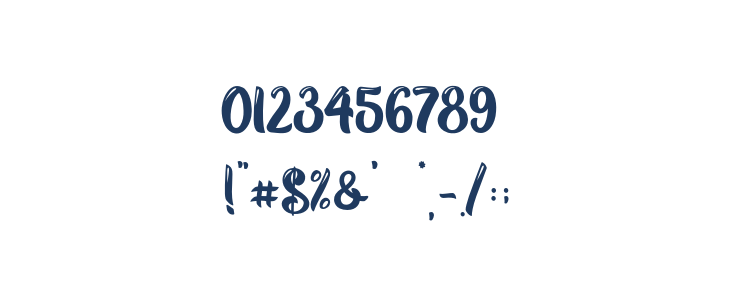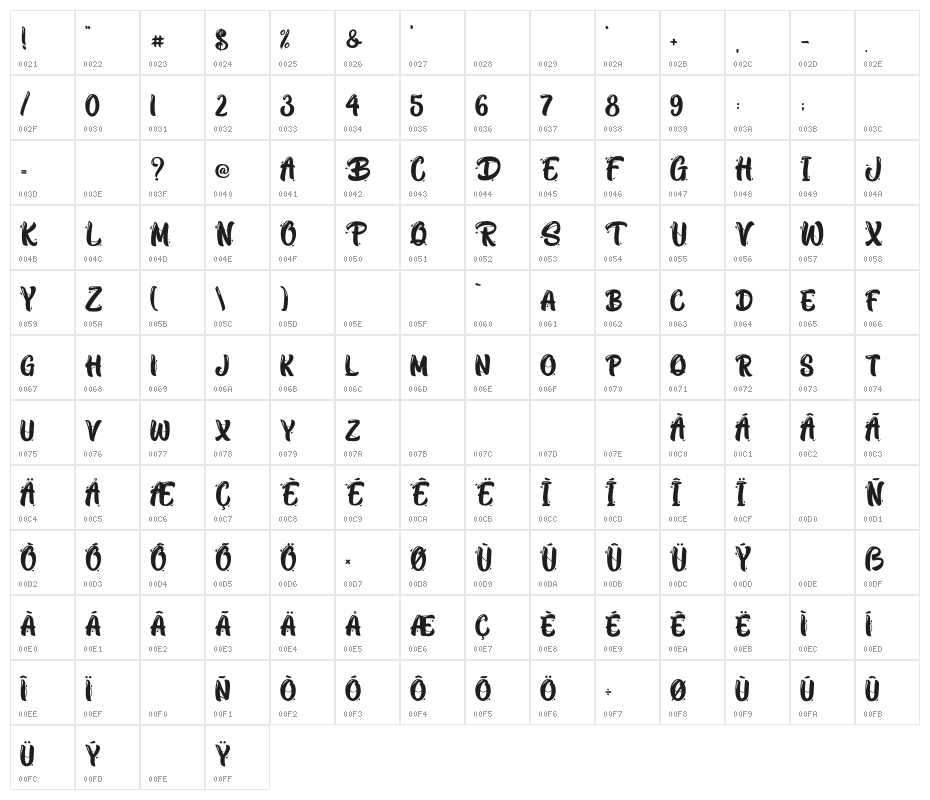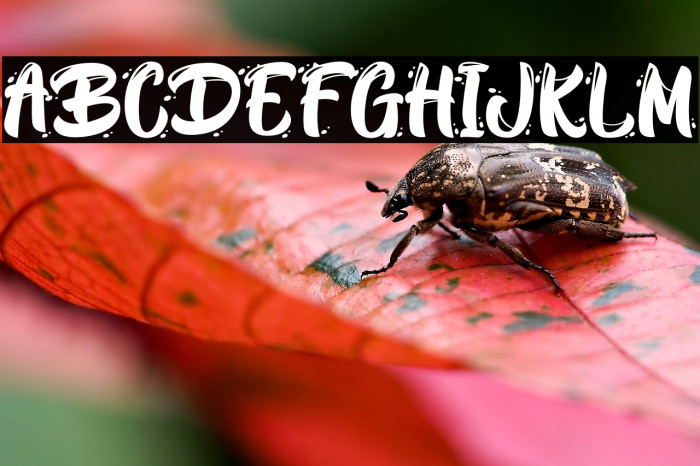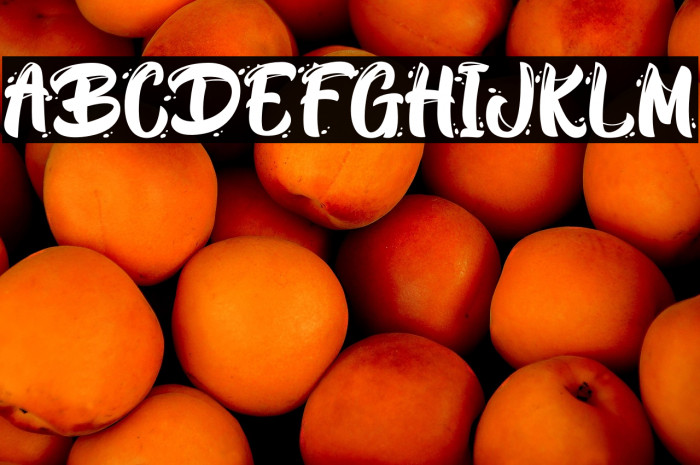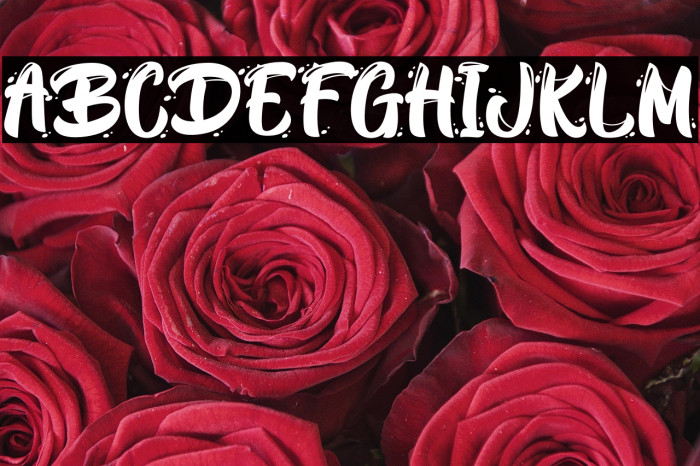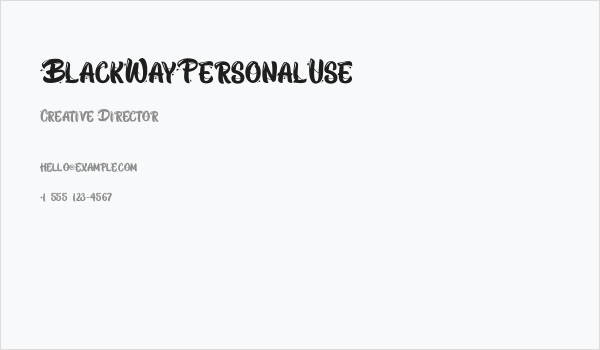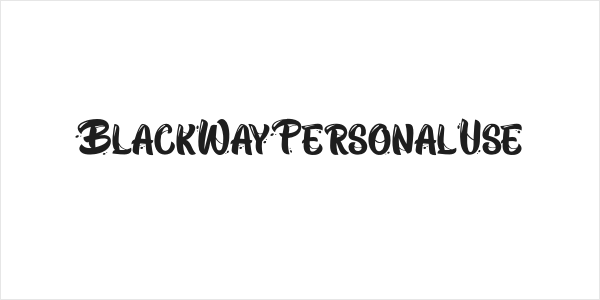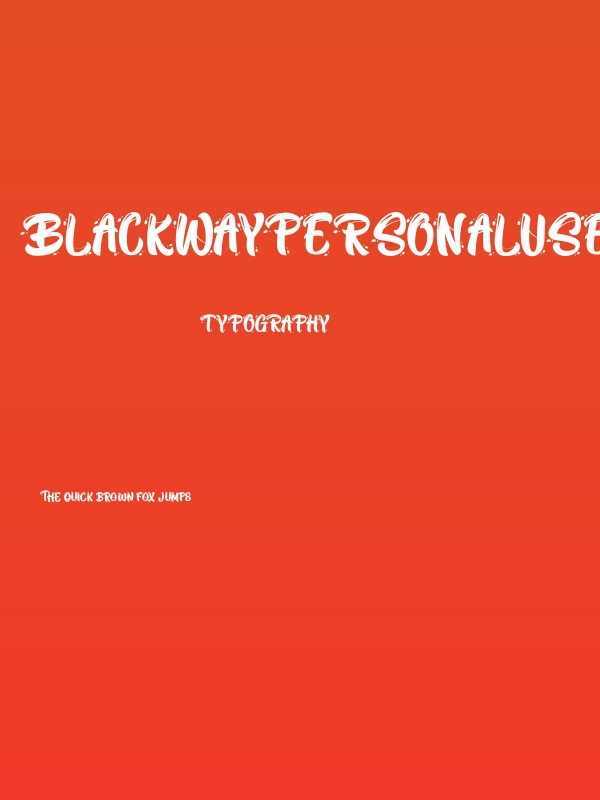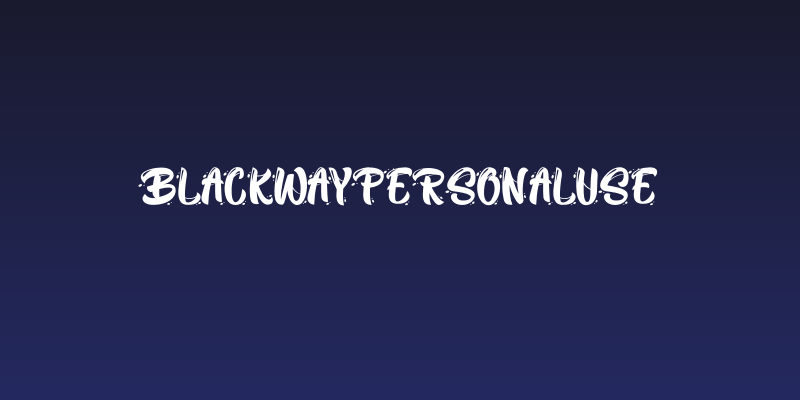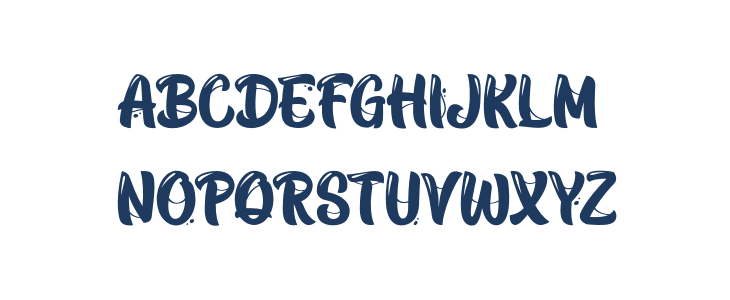
BlackWayPersonalUse Font
BlackWayPersonalUse Description
This font features a bold and expressive style with a handwritten appearance. The characters are thick and rounded, giving a playful and dynamic feel. Each letter is adorned with unique splatter-like embellishments, adding a sense of movement and creativity. The uppercase and lowercase letters maintain a consistent style, while the numbers and special characters complement the overall design. This font's energetic and artistic nature makes it suitable for projects that require a lively and informal touch.
| Proposed Projects | Ideal for creative projects such as posters, invitations, branding, and social media graphics where a lively and artistic touch is desired. |